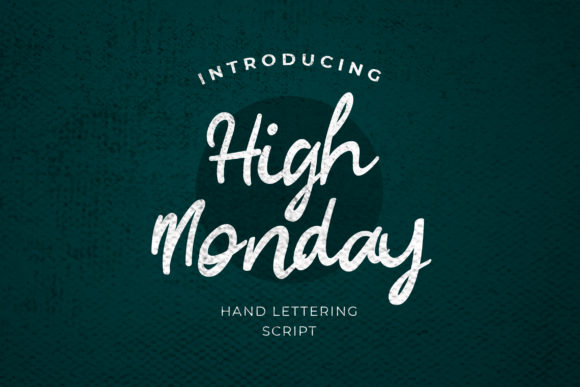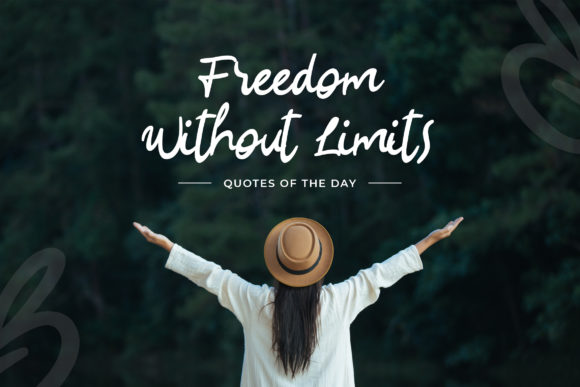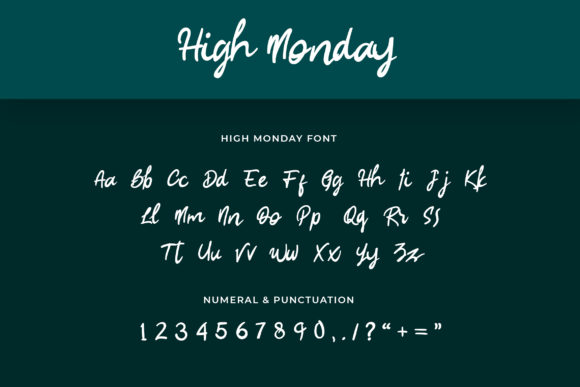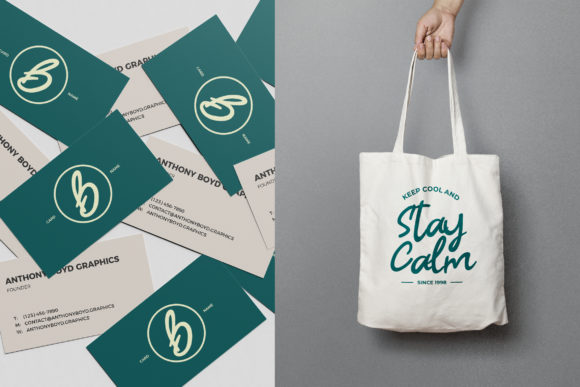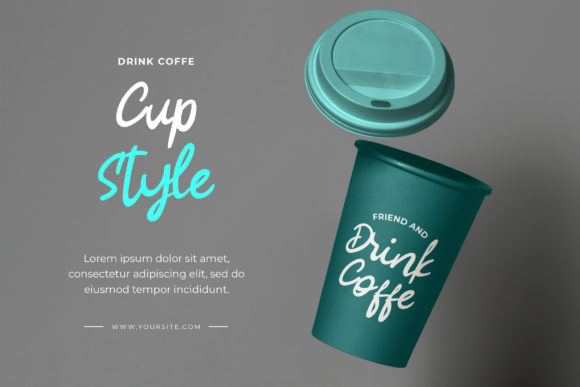
About High Monday Font
High Monday is a fun and friendly handwritten font that brings a playful and lighthearted vibe to your designs. With its versatile script style, this font is suitable for a wide range of applications, making it a great choice for various projects.
One of the key strengths of High Monday is its ability to add a sweet and charming touch to your designs. The handwritten nature of the font gives it a personal and organic feel, making it perfect for creating greeting cards, invitations, and other personalized stationery. Its friendly and approachable appearance also makes it a great fit for kids’ crafts and projects, adding a sense of fun and whimsy.
The versatility of High Monday allows it to be used in different contexts and design themes. It can be applied to create eye-catching headlines, playful logos, social media graphics, or any design that requires a touch of playfulness. The font’s dynamic and varied letterforms contribute to its overall energetic and lively character.
When using High Monday, you can experiment with different sizes, colors, and styles to achieve the desired effect. Mixing uppercase and lowercase letters, as well as incorporating swashes and ligatures, can add further flair and uniqueness to your designs. Additionally, pairing High Monday with complementary fonts, such as sans-serif or serif typefaces, can create a balanced and harmonious visual composition.
It’s important to consider legibility and readability when using High Monday, especially for longer blocks of text. Adjusting the spacing and line height can help ensure that the text remains clear and easy to read.
In summary, High Monday is a fun and friendly handwritten font that brings a sweet and charming touch to your designs. Its versatility allows it to be used in various applications, from greeting cards to kids’ crafts. With High Monday, you can add a playful and lighthearted element to your designs, making them stand out and capturing the attention of your audience.